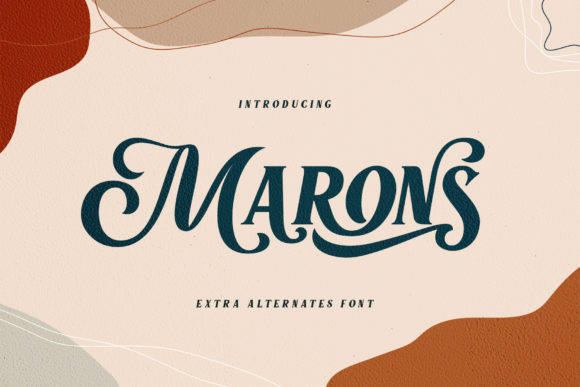
Marons Font: Unveil the Vintage Elegance for Your Designs
Indulge in the timeless allure of Marons Font, a display typeface exuding vintage charm. Designed by the renowned Alit Design, this font is meticulously crafted to evoke a sense of nostalgia and sophistication, making it the perfect choice for designers seeking a unique and captivating impression.
Marons Font: The Epitome of Elegance and Distinction
Immerse yourself in the beauty of Marons Font, a display typeface that embodies elegance and distinction. Its carefully crafted characters, reminiscent of a bygone era, add a touch of vintage charm to any design project. Whether you're creating logos, posters, invitations, or social media graphics, Marons Font will elevate your work to new heights.
Marons Font: A Journey Through Time
Marons Font is not just a collection of letters; it's a journey through time, transporting you to an era of grace and refinement. Its vintage-inspired design evokes a sense of nostalgia, while its modern interpretation ensures it remains relevant and captivating in today's digital world. Embrace the timeless appeal of Marons Font and let your designs speak volumes.
Marons Font: The Ultimate Creative Expression
Unleash your creativity with Marons Font, the ultimate tool for expressing your unique style. Its versatility allows you to experiment with different design possibilities, from classic and timeless to bold and contemporary. Whether you're a seasoned designer or just starting out, Marons Font is the perfect companion for bringing your creative visions to life.